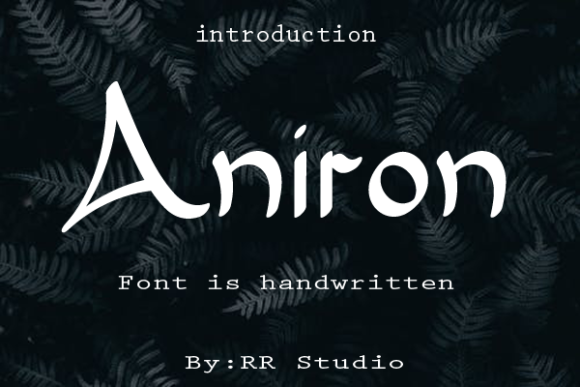
About Aniron Font
Aniron is a stylish and incredibly elegant handwritten font. It looks stunning on wedding invitations, thank you cards, quotes, greeting cards, logos, business cards and every other design which needs a handwritten touch.